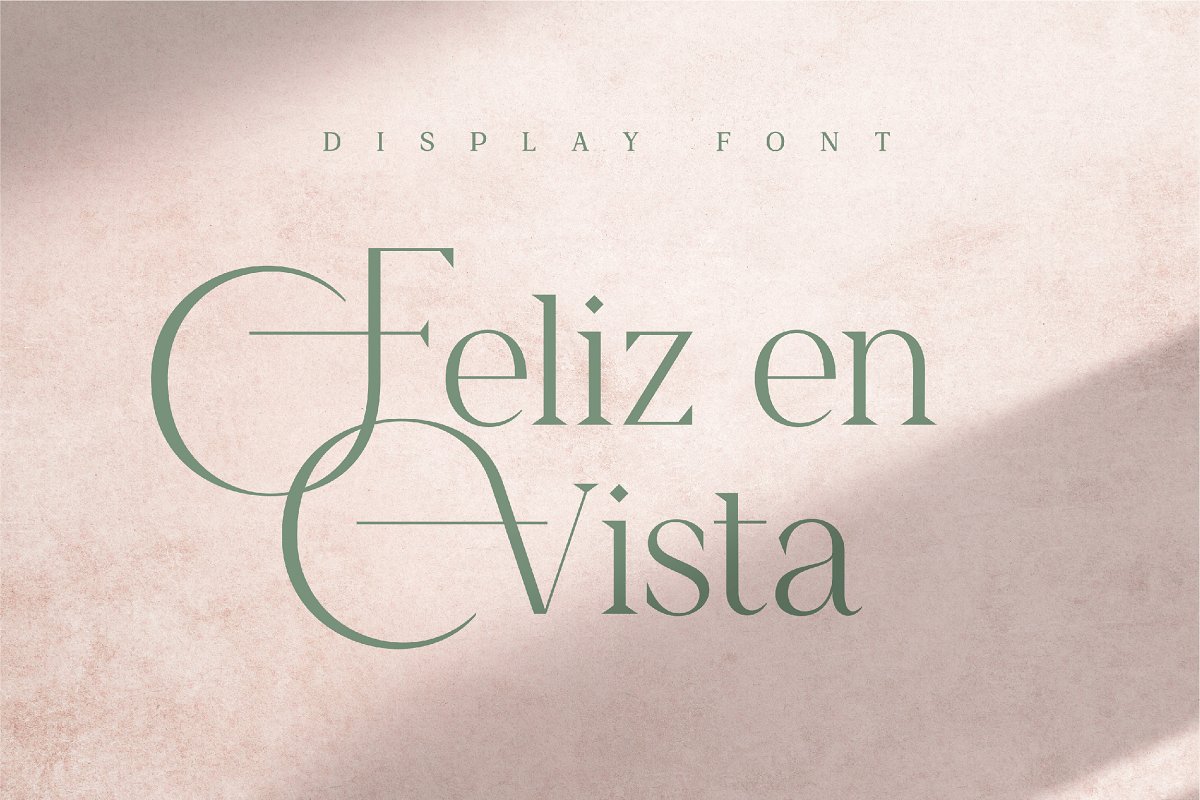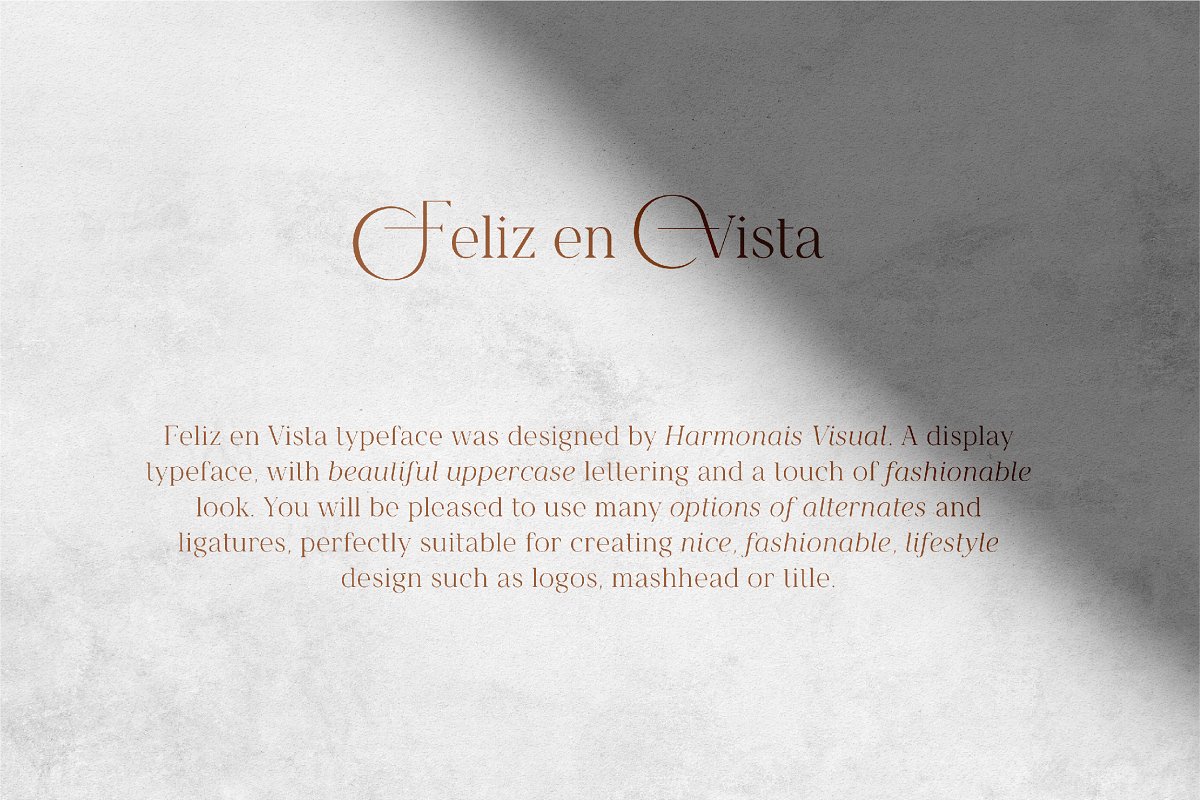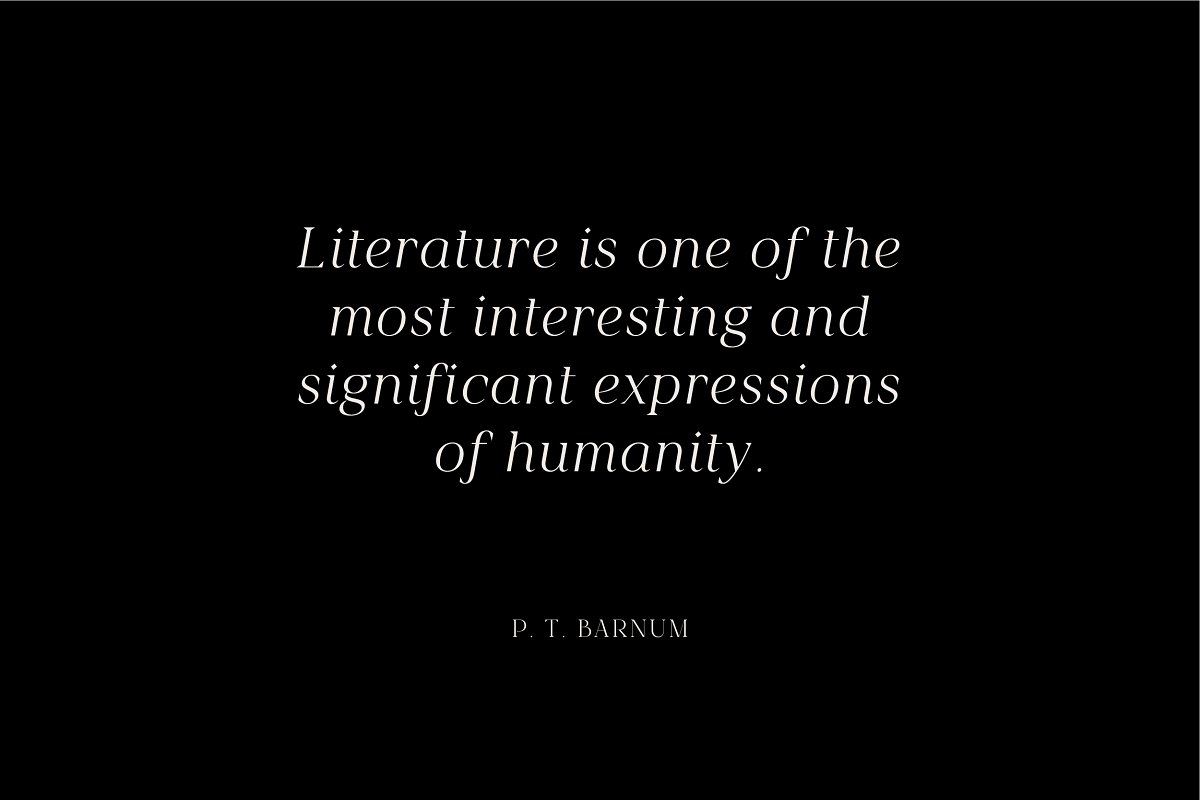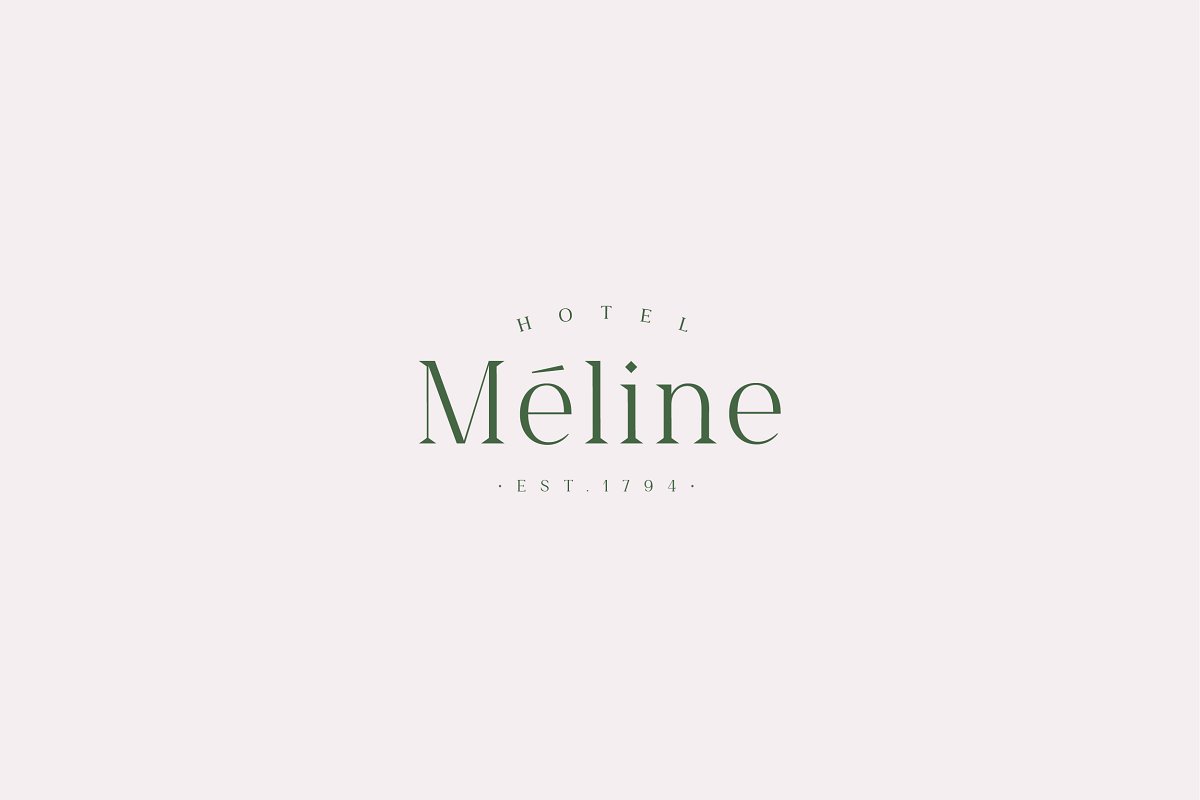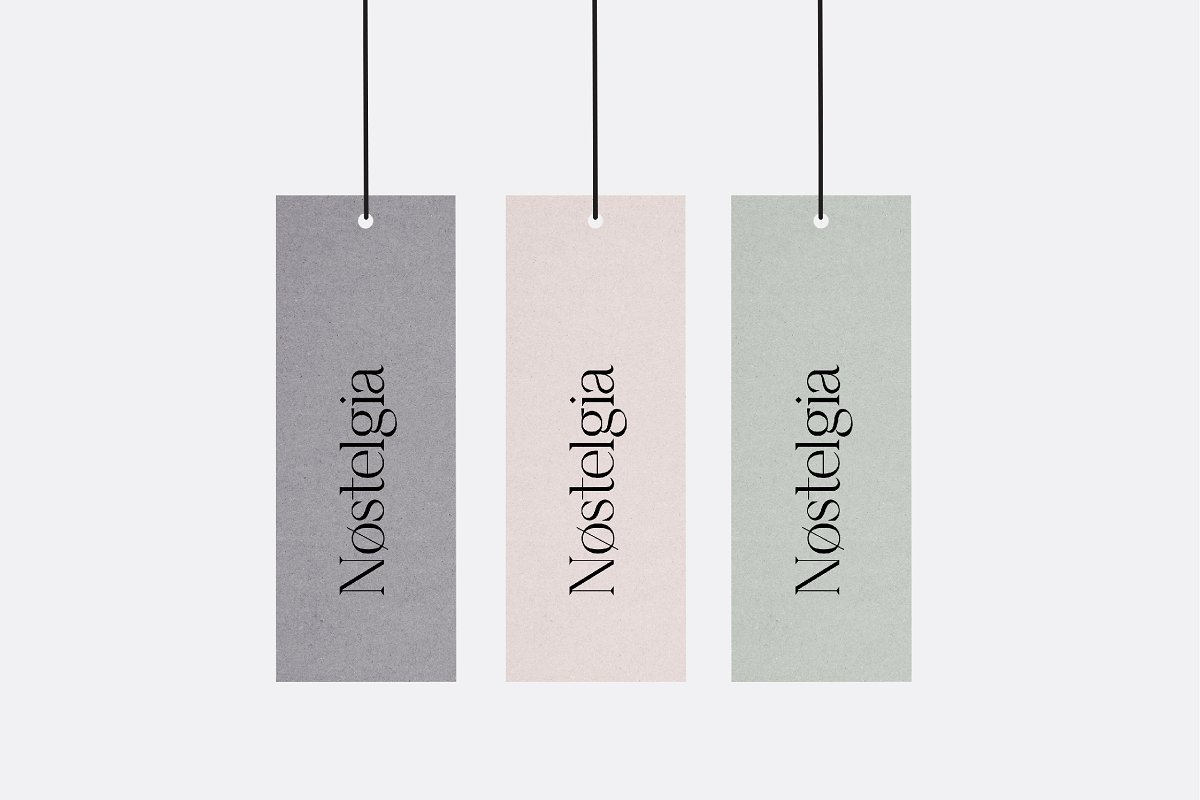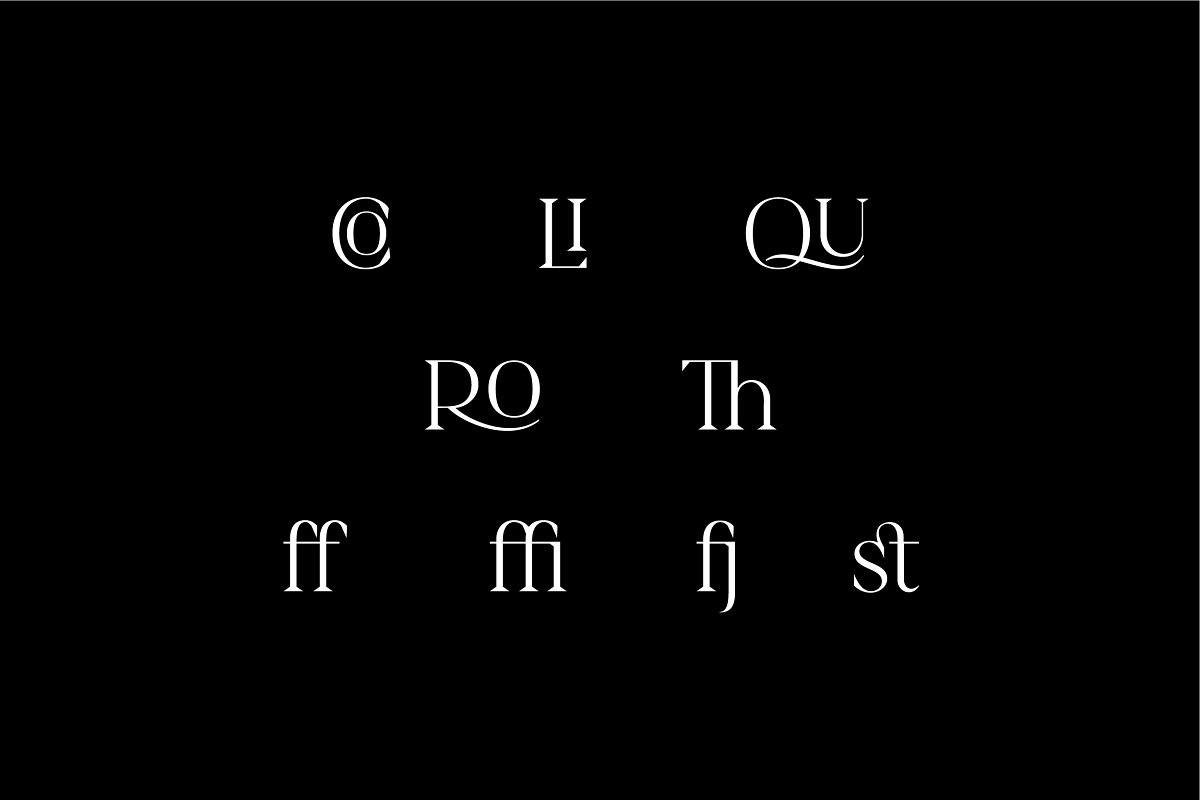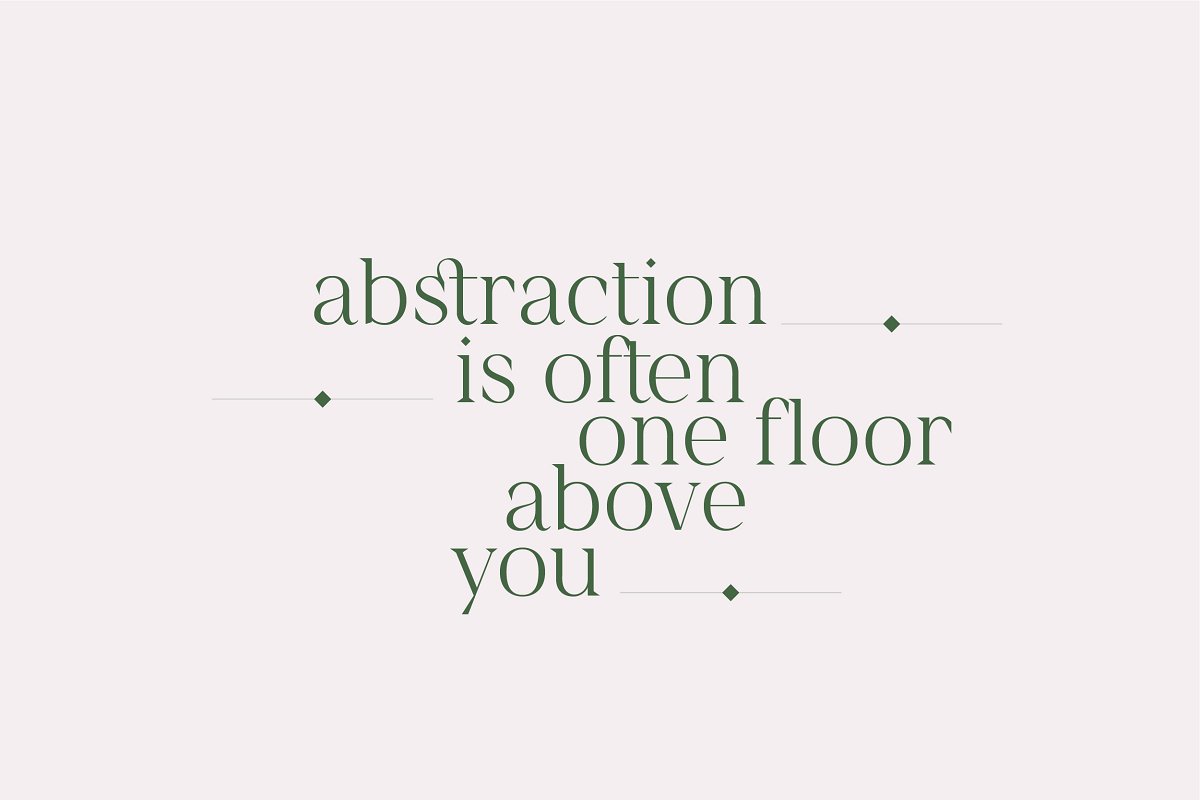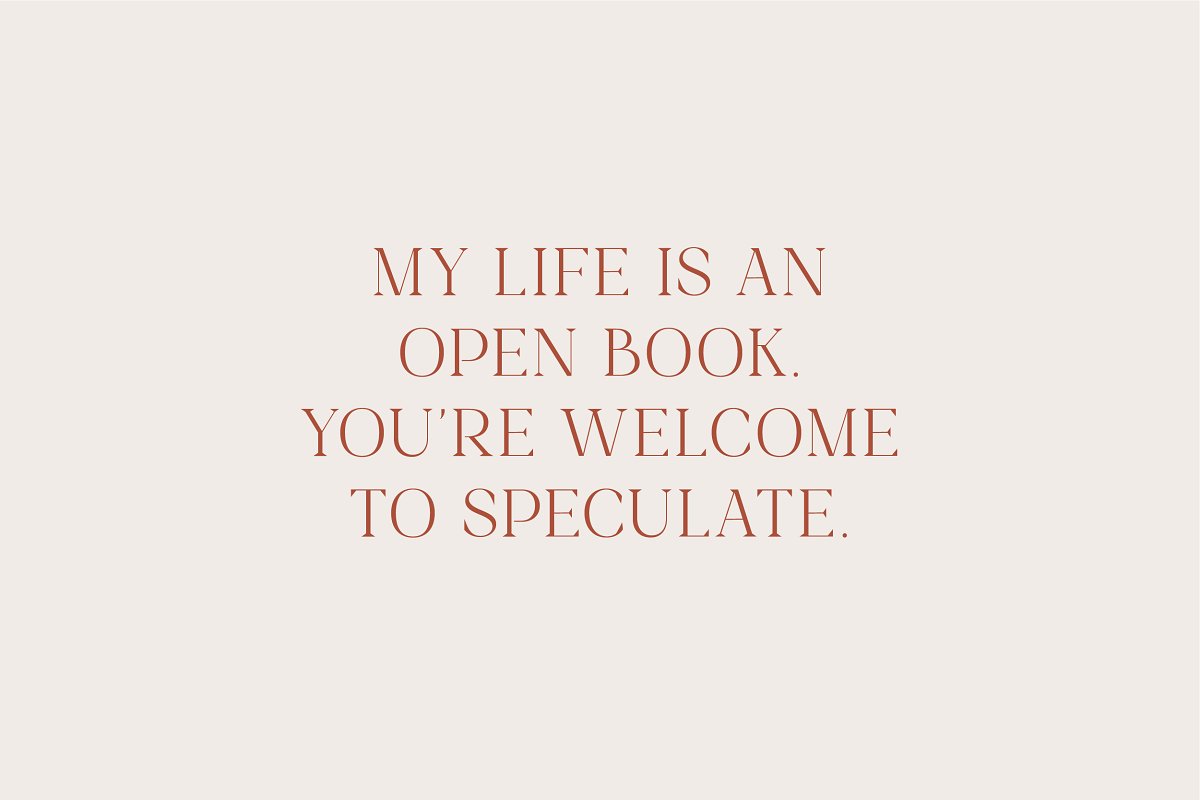
About the Feliz en Vista Display Font
‣ 09/08 UPDATE: ITALIC & BOLD ADDED, , TTF & , WOFF FORMAT ADDED Feliz en Vista – a modern sefif, display typeface with beautiful uppercase lettering and a touch of fashionable look, You will be pleased to use many options of alternates and ligatures, perfectly suitable for creating nice, fashionable, lifestyle design such as logos, mashhead, title and wedding paper